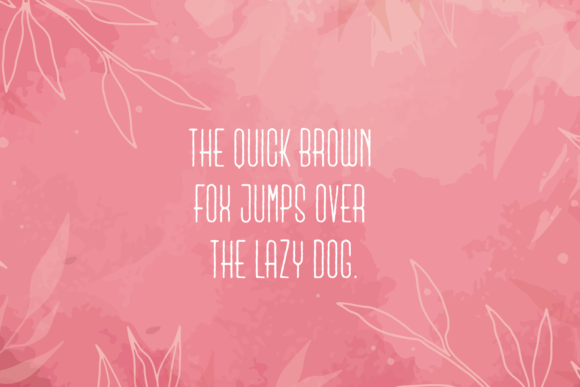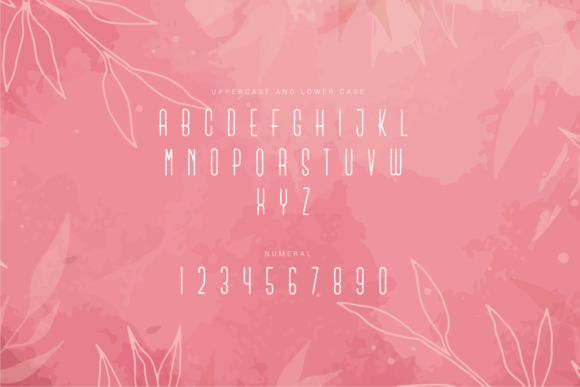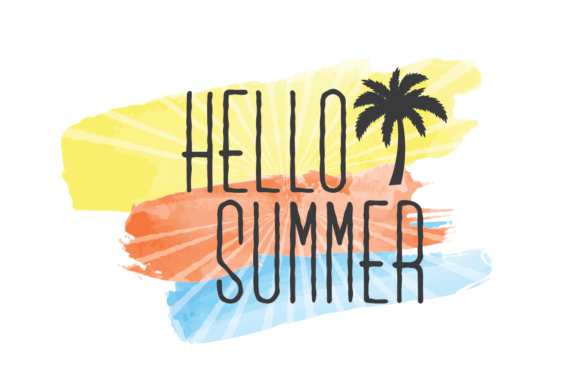
Introduction to Kumachi Font
Kumachi is a sweet and tall display font.
With its neat and beautiful arrangement of letters, this font will look outstanding in both formal and non-formal designs .
Key Features of Kumachi Font
Why Choose Kumachi Font?
Kumachi Font offers exceptional quality and versatility, making it a valuable addition to your design toolkit. Whether you’re creating for personal projects or commercial use, Kumachi Font delivers professional results.